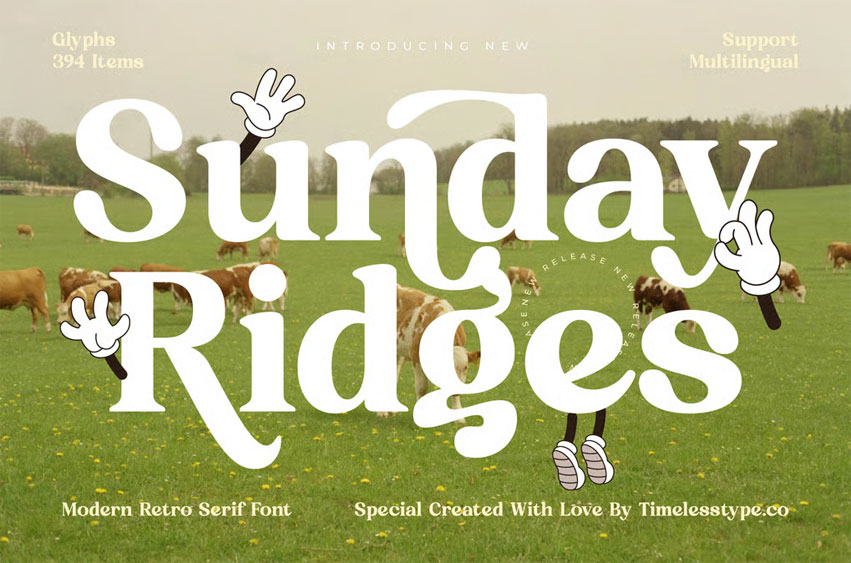
Sunday Ridges Font
Sunday Ridges Font is a modern retro serif font with a playful and charming personality. Its soft curves, bold shapes, and vintage-inspired details make it perfect, posters and editorial projects.
With 394 glyphs and multilingual support, Sunday Ridges brings a warm, nostalgic feel to any design while maintaining a modern, creative touch — ideal for brands that want to combine fun and sophistication.